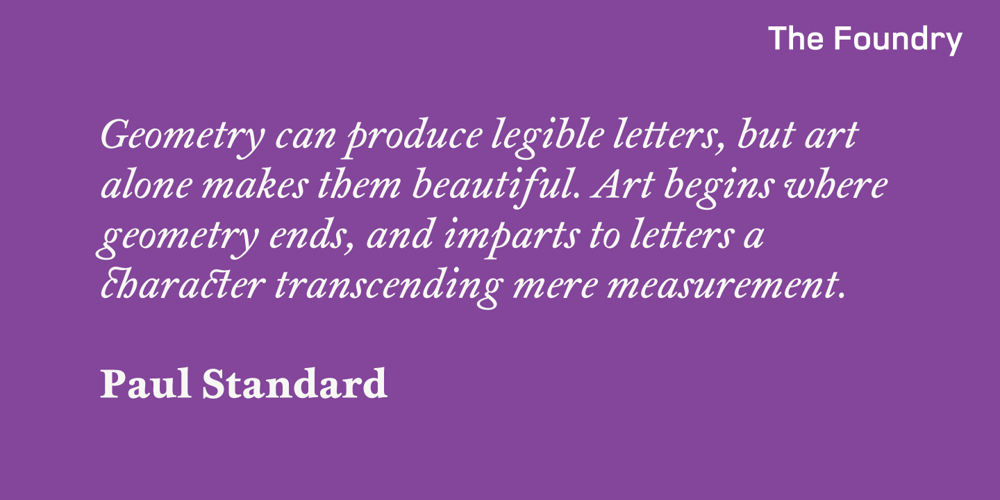
Foundry Wilson Font Family was designed by Alexander Wilson, Freda Sack, David Quay and published by The Foundry. Foundry Wilson contains 4 styles and family package options. Foundry Wilson is a lovingly drawn revival of a 1760 font from Scottish type founder Alexander Wilson, a learned and cultured man who crafted his types with care and skill. Many of Wilson’s fonts were produced exclusively for the Foulis brothers’ classics published by Glasgow University Press. This creative relationship produced typography that earned the praise of their peers. A fresh alternative to the contemporary Baskerville, with a taste of the incised letterforms of its time, Foundry Wilson is a robust and lively type design that displays a beautiful colour and texture on the page.